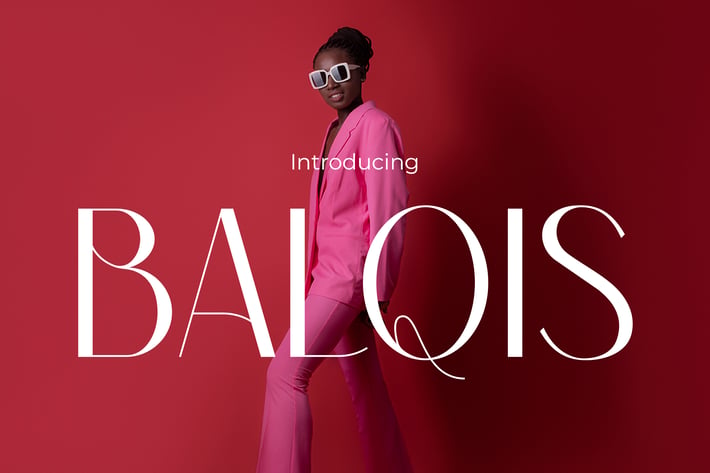
Balqis - A Serif of Elegance Modern Font
BALQIS
A modern fashion display font with high contrast strokes, elegant terminals, and editorial sophistication.
Balqis offers a striking balance between dramatic proportions and refined femininity, with long vertical stems, soft contrast, and a clean high-fashion aesthetic. Its graceful curves and tight spacing feel straight out of a luxury magazine cover or couture label, making it the ideal choice for upscale branding, beauty packaging, and editorial headlines that require visual drama and class.
Balqis speaks directly to designers looking to communicate elegance and power in one breath. Whether you're crafting a fashion lookbook, curating a luxury product label, or setting the tone for an editorial layout, this font creates a sense of modern glamour and timeless refinement. It effortlessly brings clarity, sophistication, and femininity to beauty, fashion, and lifestyle brands.
Key Features :
Sophisticated Visuals
- High-contrast strokes for bold, magazine-ready headlines
- Elongated vertical lines and minimalistic terminals
Feminine & Bold
- Evokes elegance with assertive curves and slim proportions
- Ideal for beauty brands, runway projects, and wedding stationery
Editorial Ready
- Designed to shine in high-impact headers, posters, and nameplates
- Perfect companion for high-fashion branding and glossy print designs